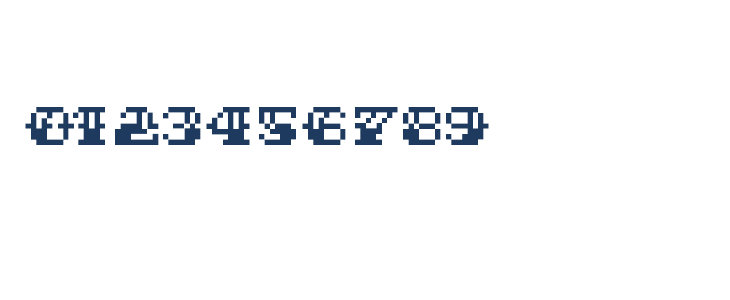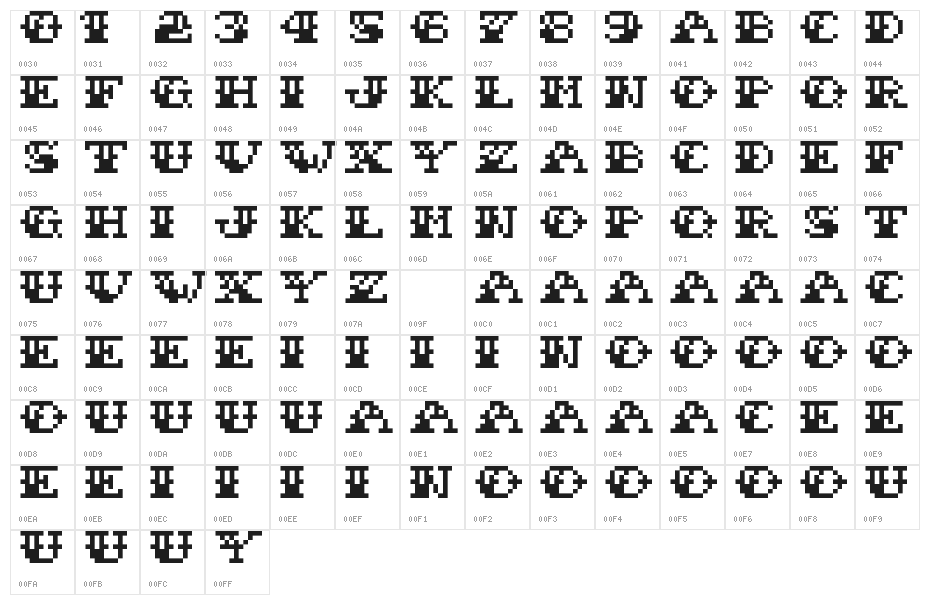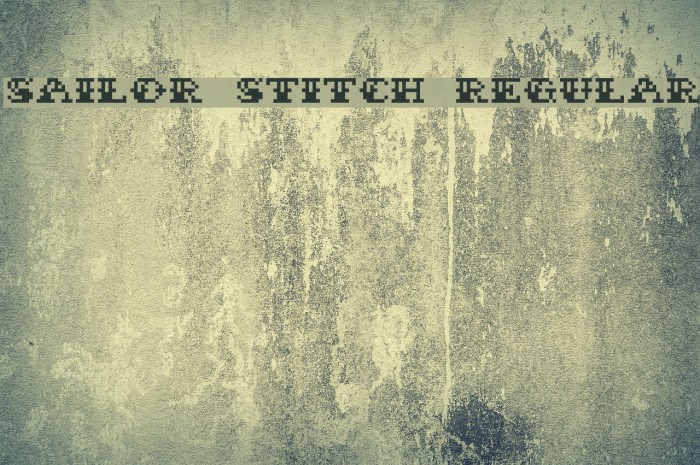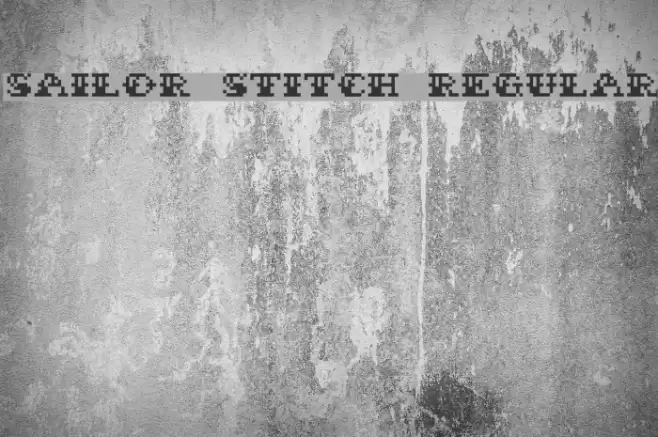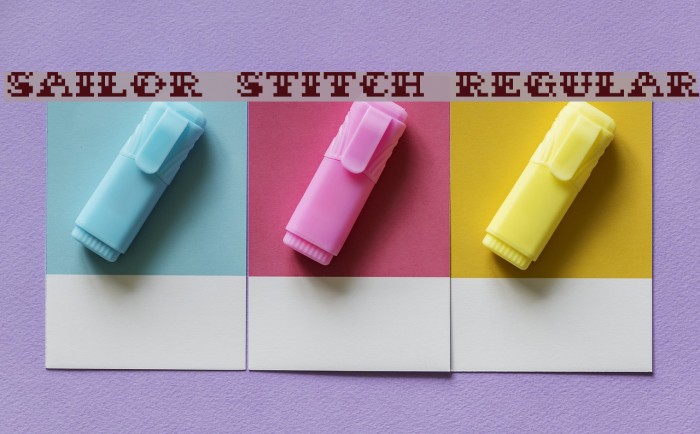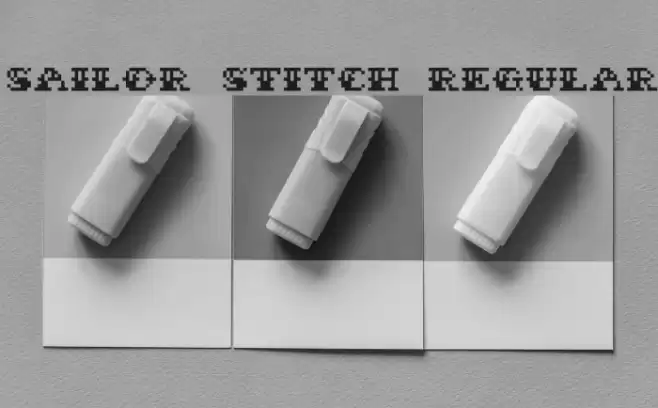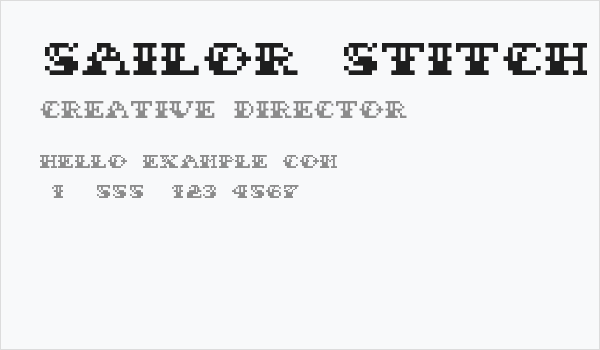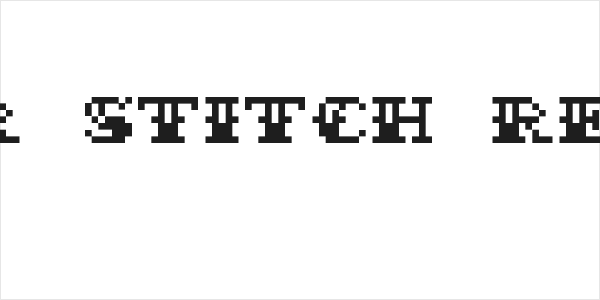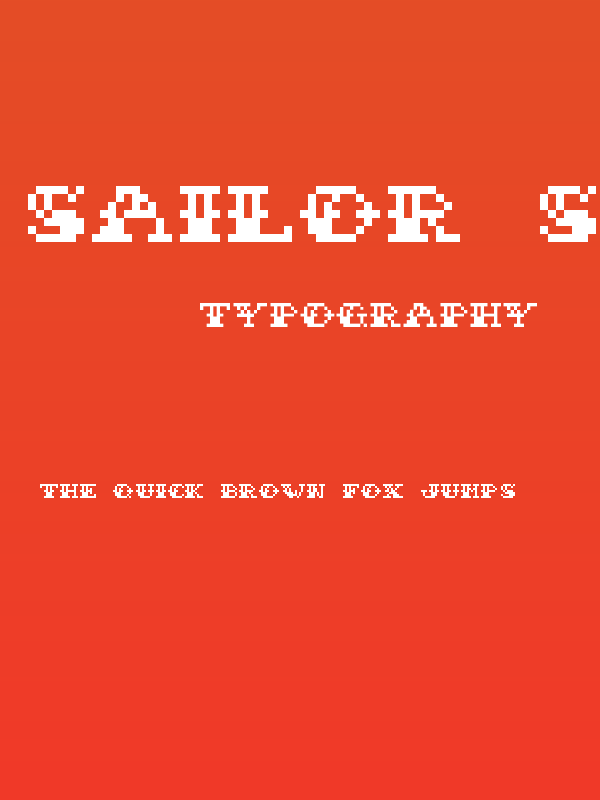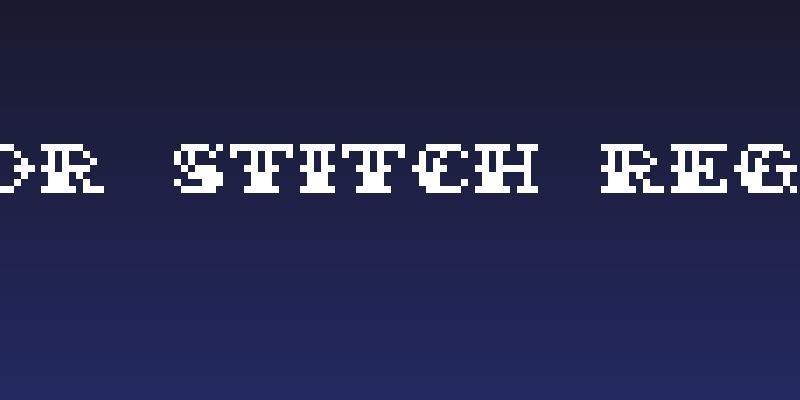
Sailor Stitch Regular Font
Sailor Stitch Regular Description
This font features a distinct pixelated style reminiscent of classic video game graphics. Each character is constructed with a blocky, grid-like appearance, giving it a retro, digital feel. The uppercase and lowercase letters maintain a consistent design, with bold, angular lines and sharp corners. Numbers and special characters follow the same aesthetic, ensuring uniformity across all glyphs. The font's unique style evokes a sense of nostalgia, making it ideal for projects that aim to capture the essence of early digital art and gaming culture.
| Use Case | Logos, Posters, Digital Art |
| Proposed Projects | Ideal for video game design, retro-themed posters, digital art projects, and nostalgic branding. |